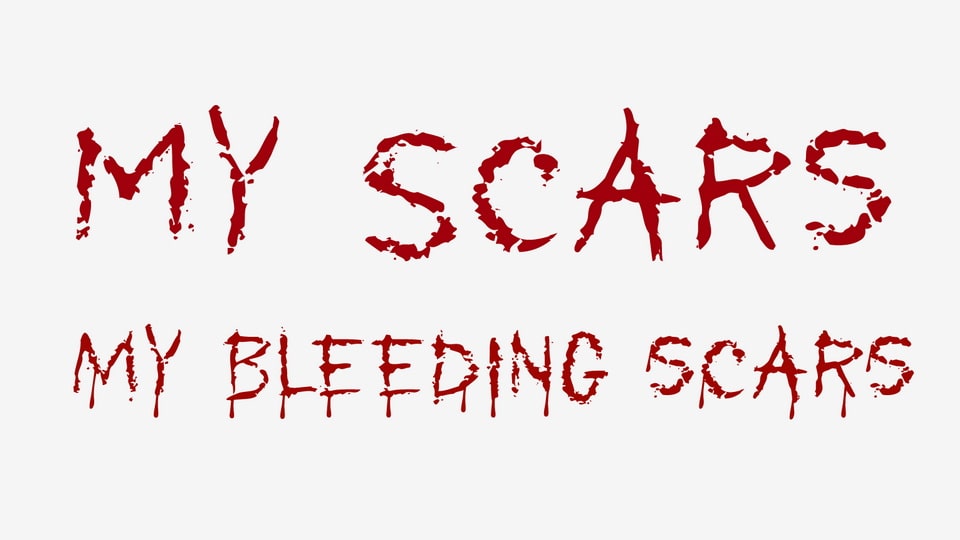
My Scars Font › Fontesk – Fonte Grátis
Download My Scars font, a hand-crafted horror typeface that that conveys a chilling vibe with its distressed texture and unsettling bleeding effect.